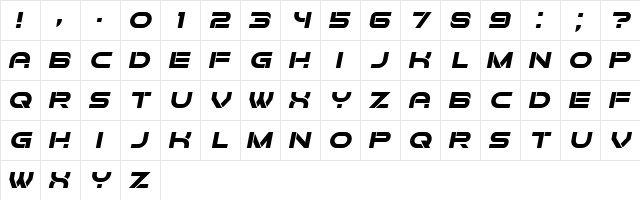
Forvertz Italic
Design Context for Forvertz Typeface
Forvertz is a composed and adaptable typeface that performs quietly and consistently across a wide range of design contexts. Its italic angle brings a sense of urgency and motion to the letterforms.
Pro Tip: Use Forvertz for emphasis, pull quotes, and subheadings where its slanted energy can add rhythm to the layout.